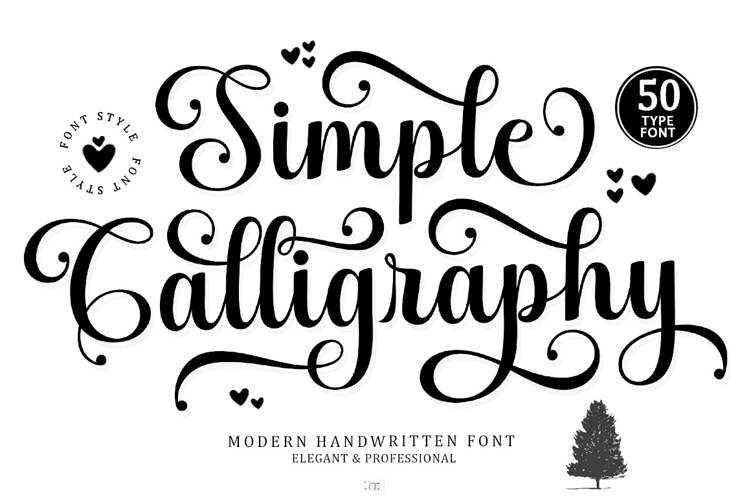
Simple Calligraphy - Family Font In 50 Type
Simple Calligraphy Family Script Font Collection is a collection of 50 beautifully designed fonts with a modern and elegant touch, exuding elegance.
Simple Calligraphy font is sleek, clean, feminine, sensual, glamorous, simple, and highly readable thanks to its many beautiful letter connections. I also offer several stylistic alternatives for some of the letters. This elegant style is perfect for use in a variety of formal applications such as invitations, labels, restaurant menus, logos, fashion, makeup, stationery, novels, magazines, books, greeting/wedding cards, packaging, labels, or any type of advertising use.
Alternatives / Styles